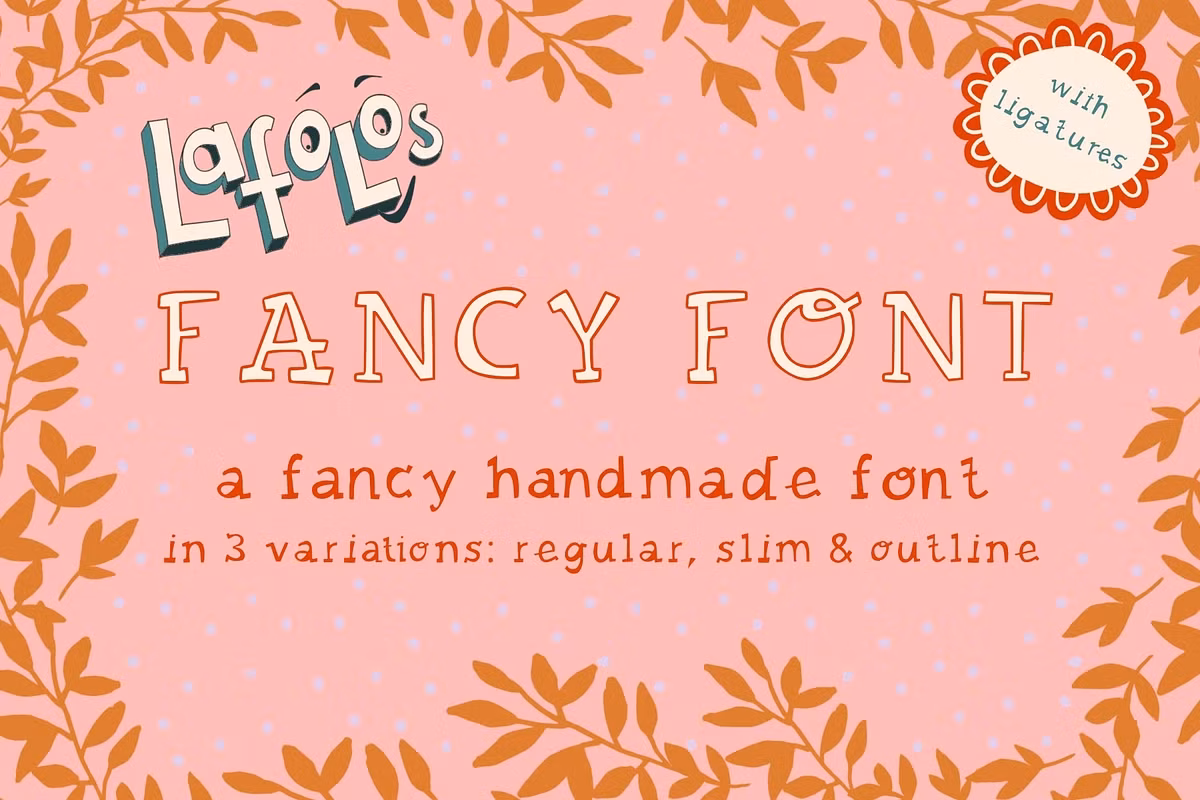
LAFOLOs Fancy Font Free Download
The LAFOLOs Fancy Font Free Download is an elegant and decorative typeface designed to add a touch of sophistication and flair to your designs. With its intricate curves and stylish details, this font is perfect for creating luxury branding, wedding invitations, logos, and high-end creative projects. Whether you're working on a special event, fashion branding, or any design that requires a refined look, LAFOLOs Fancy brings a distinctive and charming aesthetic to your work.
LAFOLOs Fancy Font Free Download is ideal for designers seeking a classy, fancy font with a touch of elegance. Perfect for upscale branding, invitations, or artistic projects, this font will elevate your designs with its stylish and intricate look. Download this beautiful font today and bring a refined, sophisticated flair to your creative work!